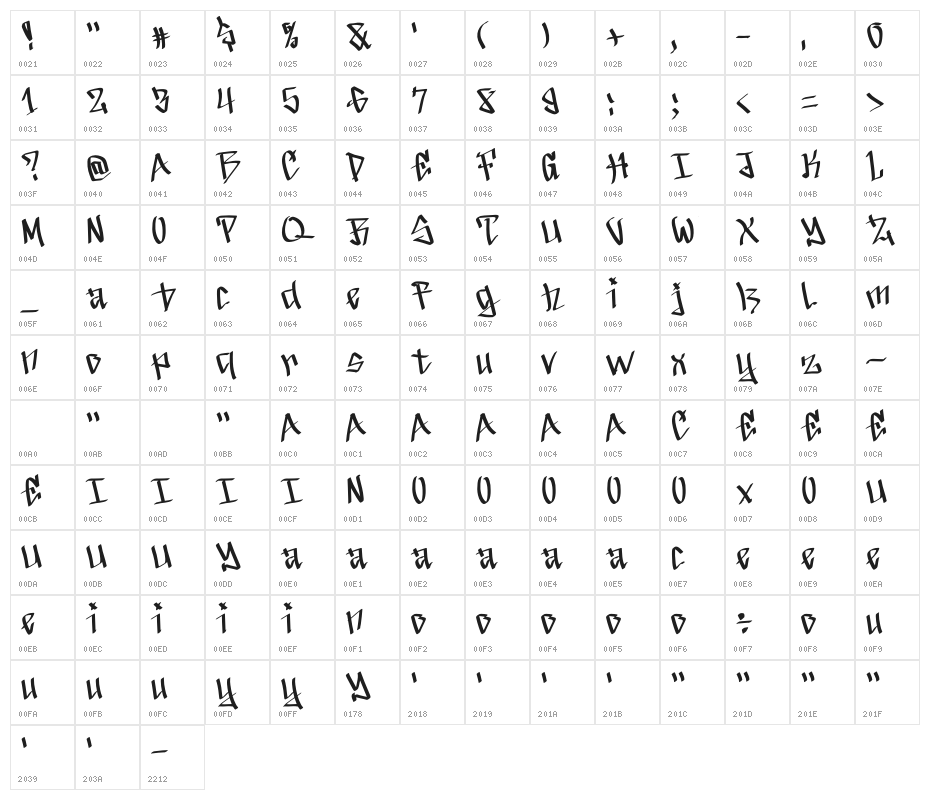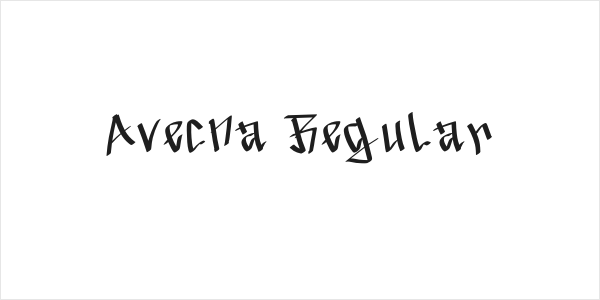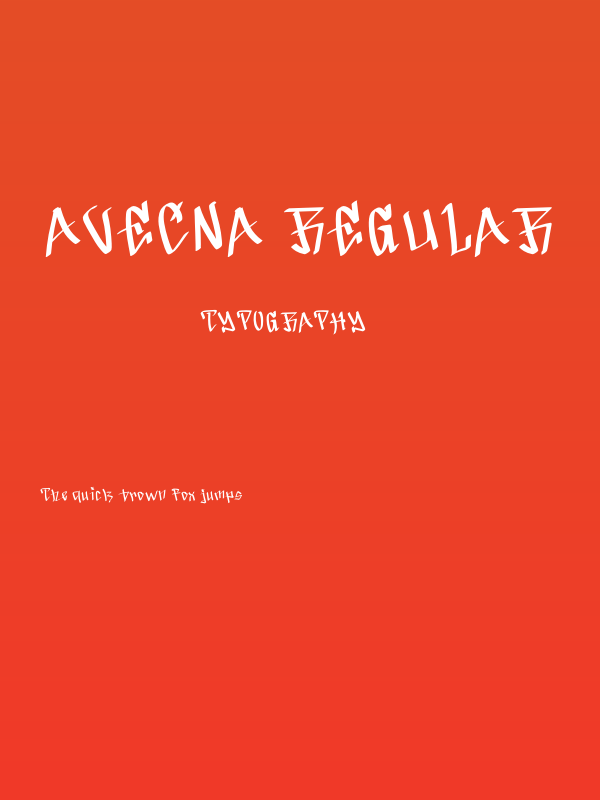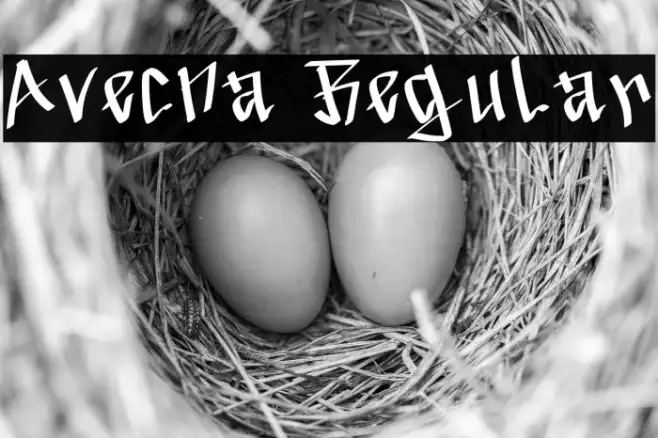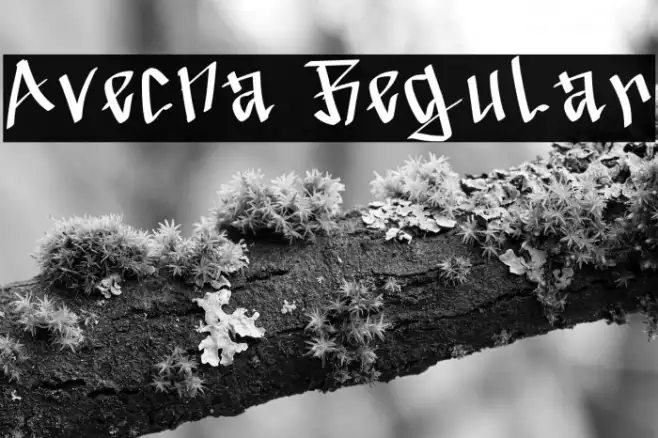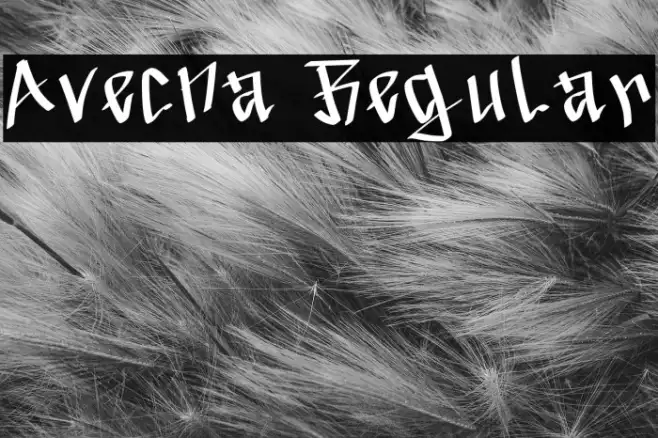
Avecna Regular Font
Avecna Regular Description
This font exhibits a dynamic and edgy style with sharp, angular lines and a slightly aggressive appearance. The characters are bold and have a hand-drawn quality, giving them a unique and artistic flair. The uppercase and lowercase letters maintain a consistent style, with exaggerated strokes and a slightly irregular baseline that adds to the font's distinctive character. The numbers and special characters follow the same design principles, ensuring a cohesive look across all glyphs. This font is well-suited for projects that require a bold and unconventional aesthetic.
AVECNA-REGULAR UPPERCASE
AVECNA-REGULAR LOWERCASE
AVECNA-REGULAR OTHER CHARS
| Overall Style | Modern, Edgy |
| Proposed Projects | Ideal for album covers, posters, branding for edgy or alternative products, and any design needing a bold statement. |